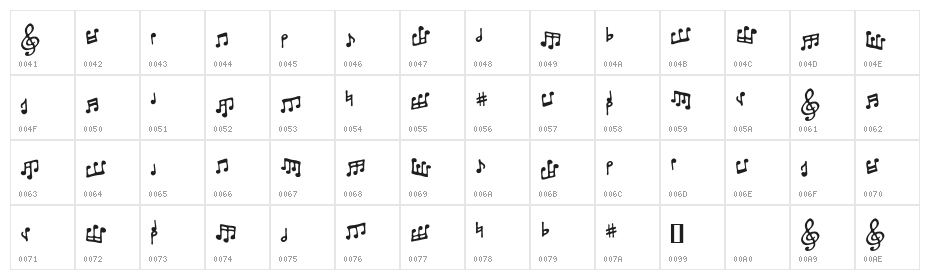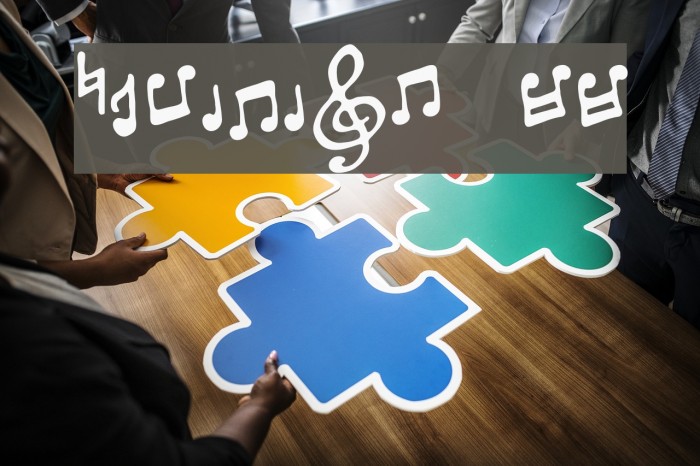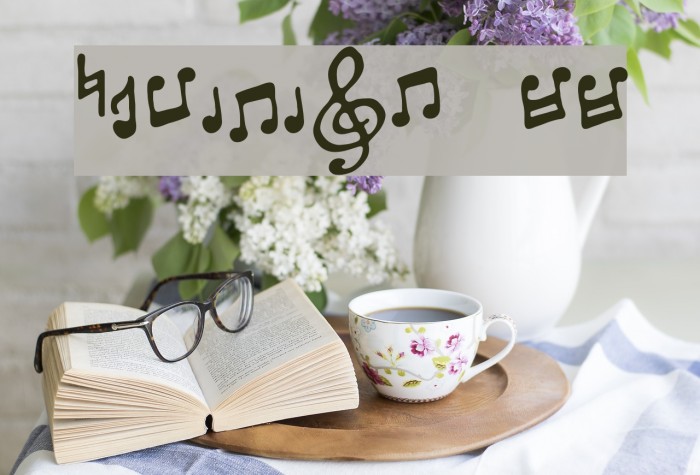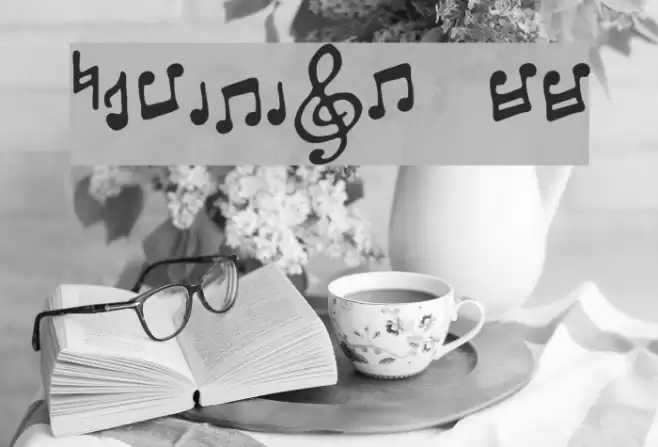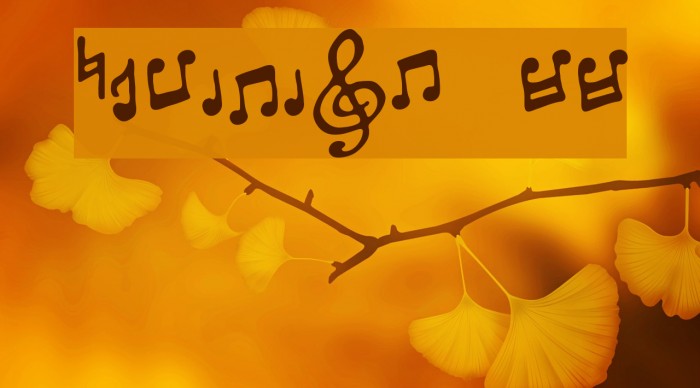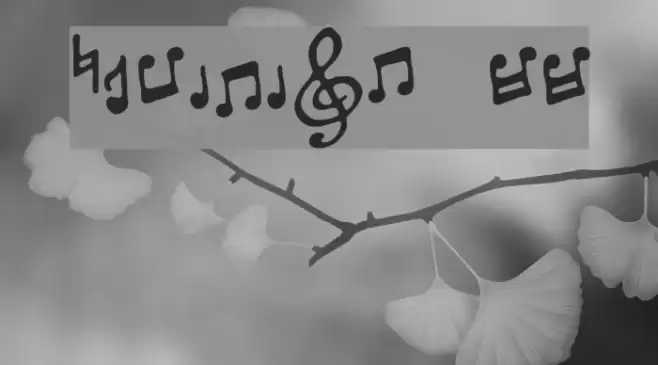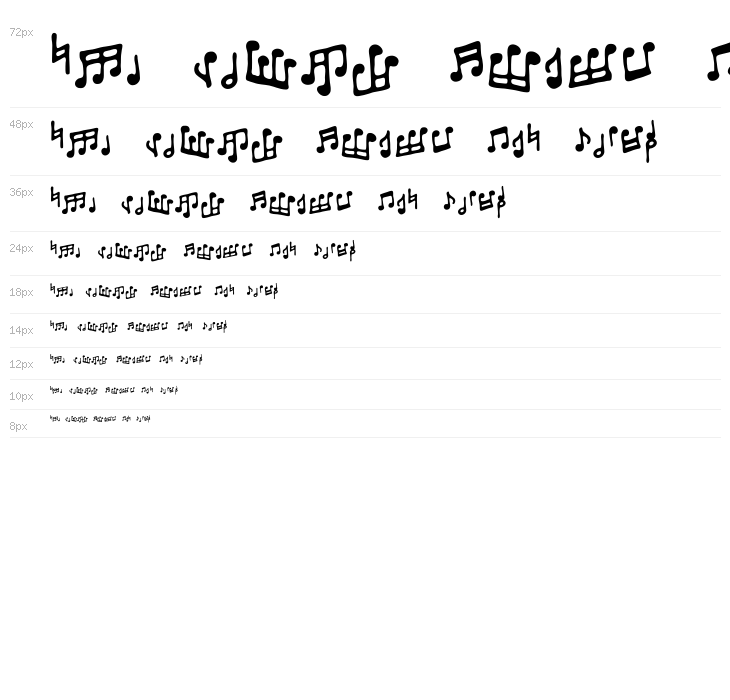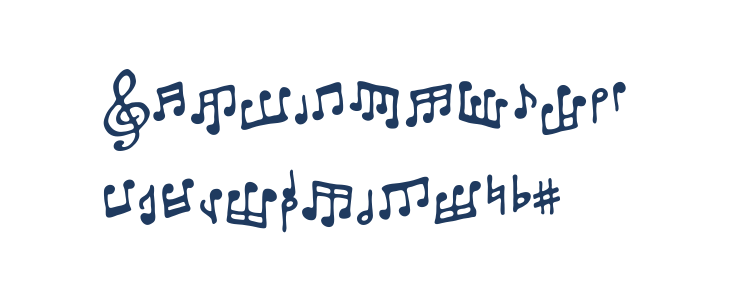
ToneDeaf BB Font
ToneDeaf BB Description
This is not a valid font for typical text usage. The image displays a series of musical notes and symbols arranged in a decorative manner, resembling a playful and whimsical style. The characters are not alphanumeric or standard punctuation marks, but rather musical notation elements such as treble clefs, notes, and other related symbols. This design is more suited for artistic or thematic purposes rather than functional text representation.
| Overall Style | Whimsical, Artistic |
| Use Case | Decorative elements, Music-themed designs |
| Proposed Projects | Ideal for music-themed posters, educational materials for music theory, or decorative elements in music-related events. |